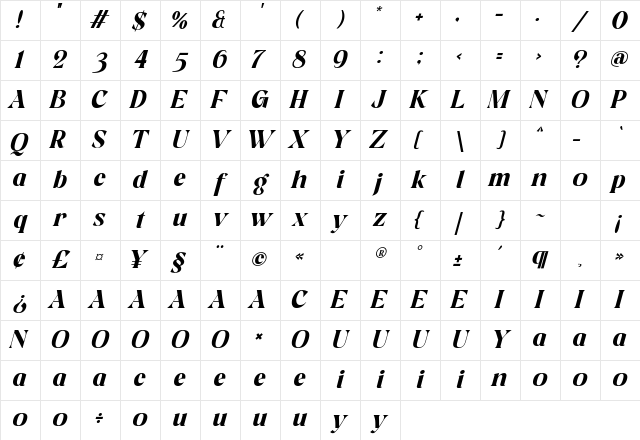
Complete Aesthetic Moment Italic glyph index. Displaying only characters natively supported by Aesthetic Moment Italic font.
Aesthetic Moment is a composed and adaptable typeface that performs quietly and consistently across a wide range of design contexts. The slanted form adds forward momentum and visual energy.
Pro Tip: Use Aesthetic Moment for emphasis, pull quotes, and subheadings where its slanted energy can add rhythm to the layout.